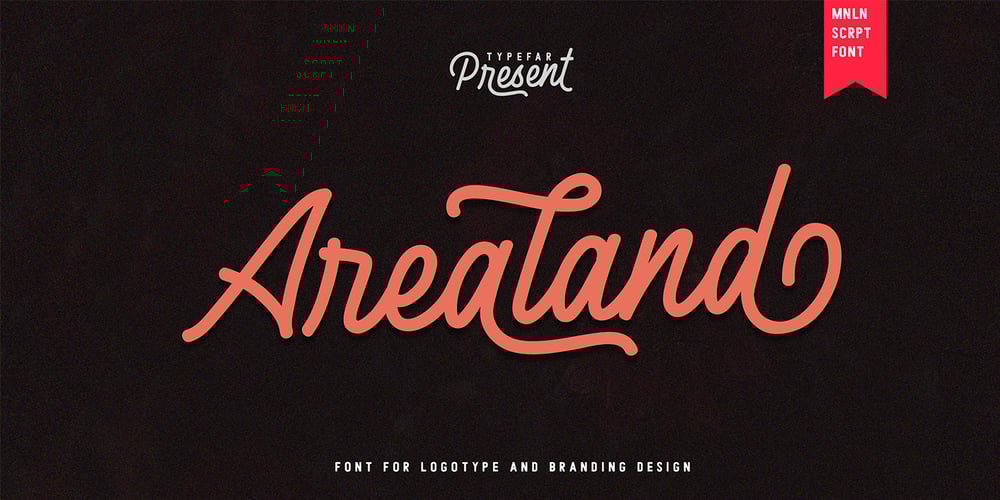
Arealand Font Family was designed by Arjianto Farul and published by Typefar. Arealand contains 1 styles and family package options. Introducing Arealand, a Monoline Script Font. Arealand is perfect for logotype and branding. also can creating beautiful vintage typography on any of your projects such as merchandise, logos, posters, calendars, quotes, t-shirts and more. Arealand fonts are also suitable for use in text content because they have good legibility. Uppercase Lowercase Symbols Numbers Accents Ligatures Alternates Thank you for watching. Hope you like it and enjoy!